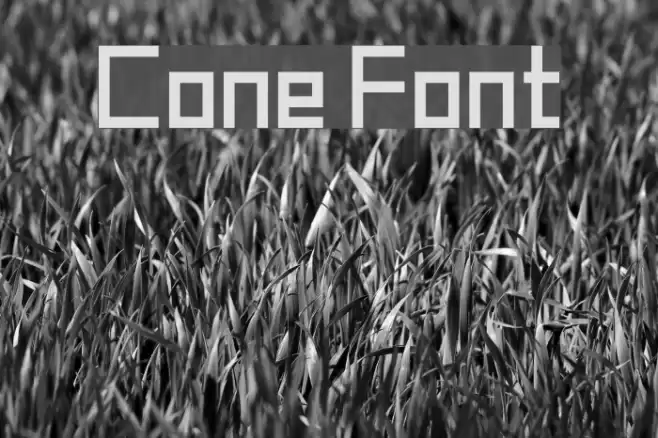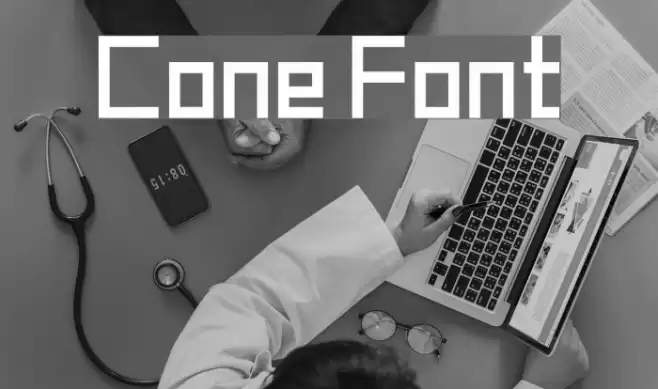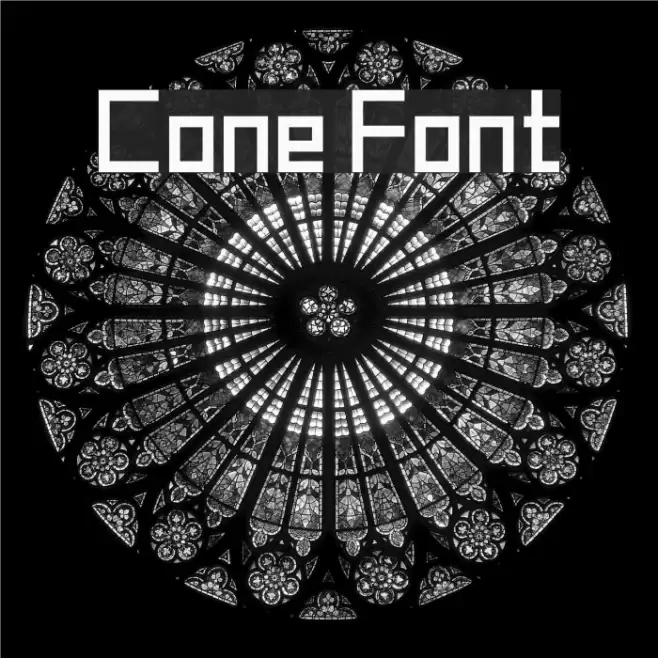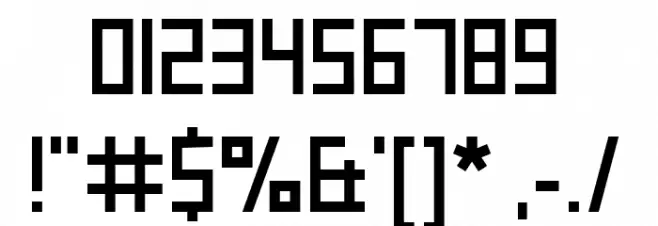
Cone Font
Cone Description
This font features a geometric and modern design with a strong, bold presence. The characters are constructed with straight lines and right angles, giving it a blocky and structured appearance. The uppercase and lowercase letters maintain a consistent height and width, contributing to a uniform look. Numbers and special characters follow the same design principles, ensuring a cohesive style throughout. The font's simplicity and clarity make it highly legible, even at smaller sizes, while its boldness ensures it stands out in larger formats.
A geometric, bold font with a modern and structured design from Thick fonts.
- Proposed Projects: Ideal for branding, headlines, posters, and any project requiring a modern and bold typeface.